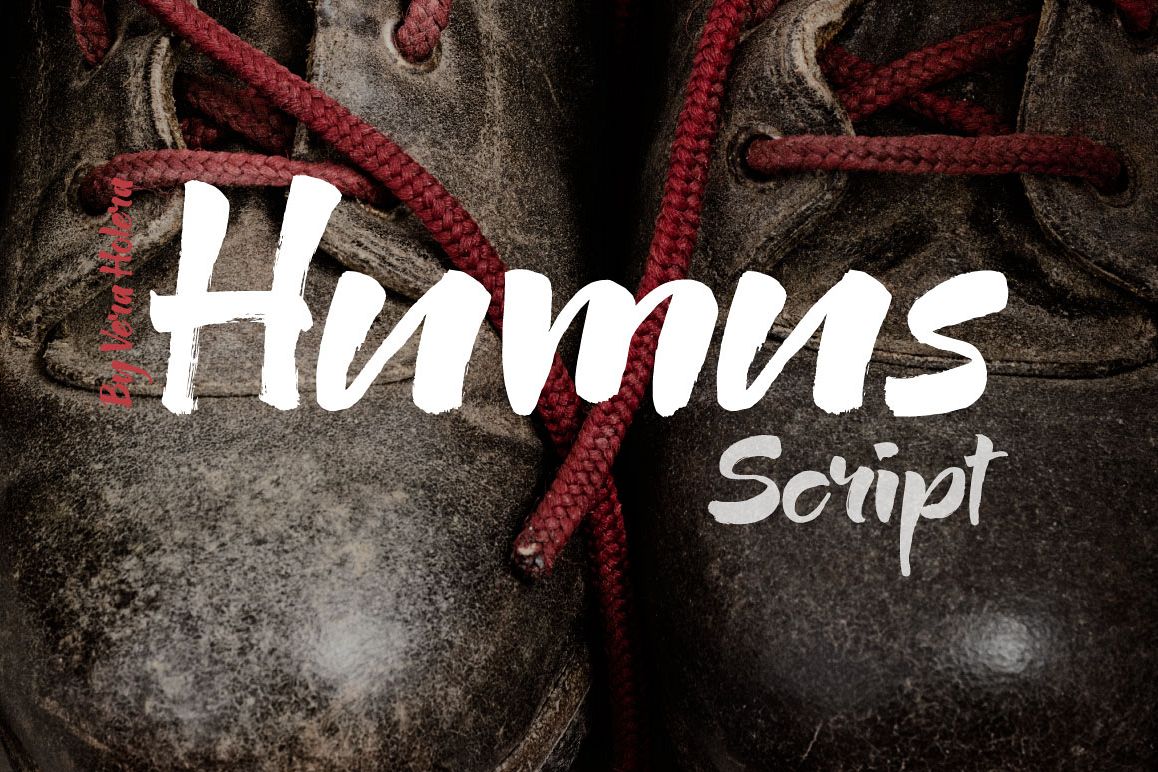
Humus scpipt
Humus
About Humus
Humus has a rich fertile nature. The script is a wide, imposing, with a little laziness. It is good for posters, titles, book covers, and other.
Basic Latin A-Z and a-z
Numbers
Limited Symbols
Ligatures